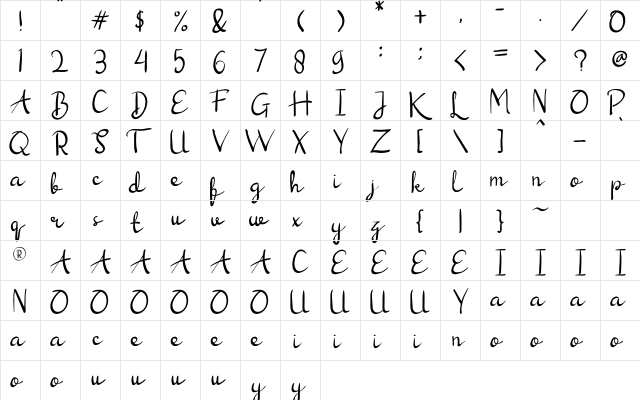
Kayana Regular
| Foundry | DawnCreative.id |
| Designer | Fajar Rachmadi P. |
Design Context for Kayana Typeface
Kayana is a composed and adaptable typeface that performs quietly and consistently across a wide range of design contexts.